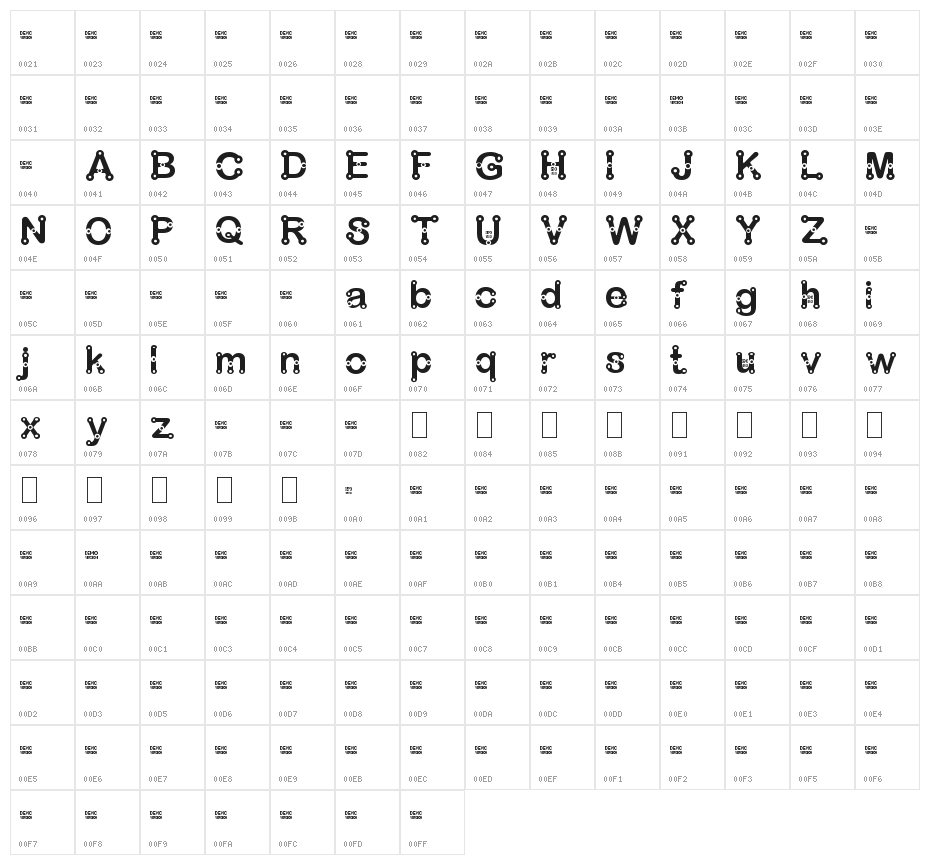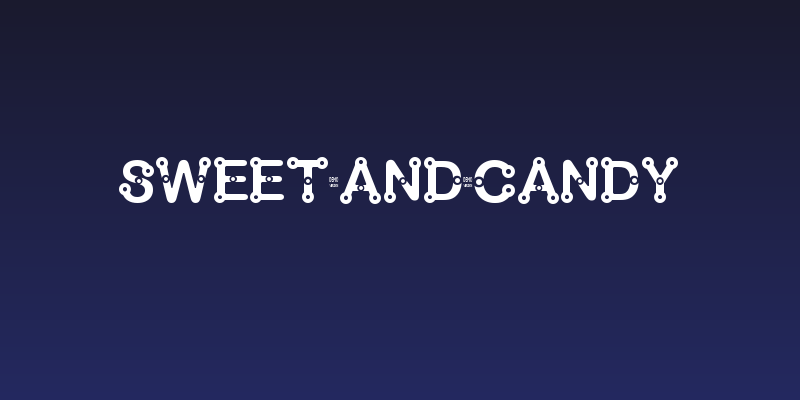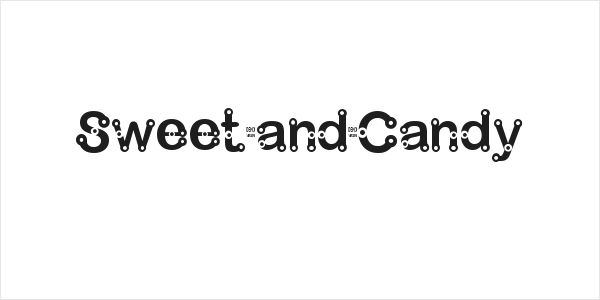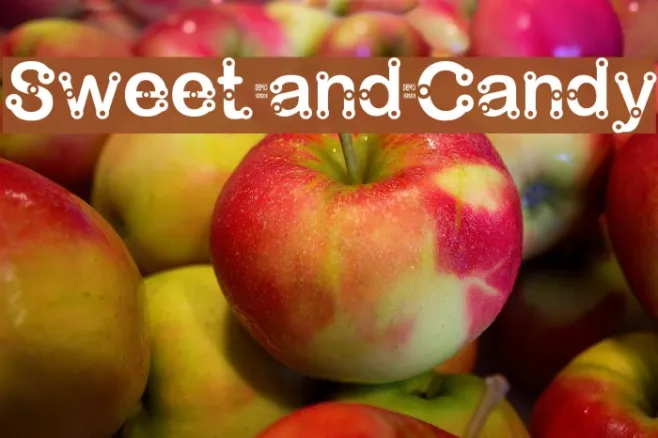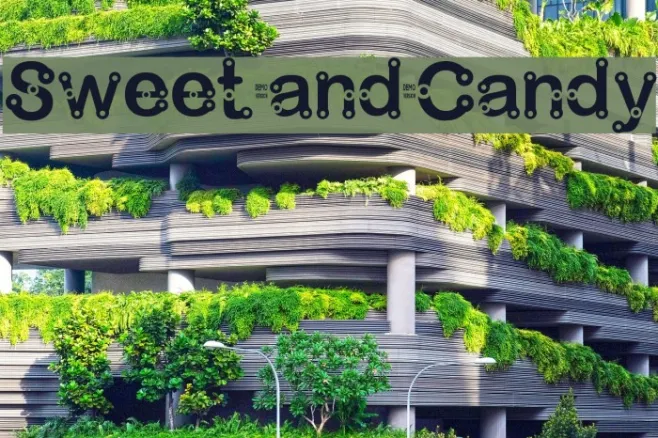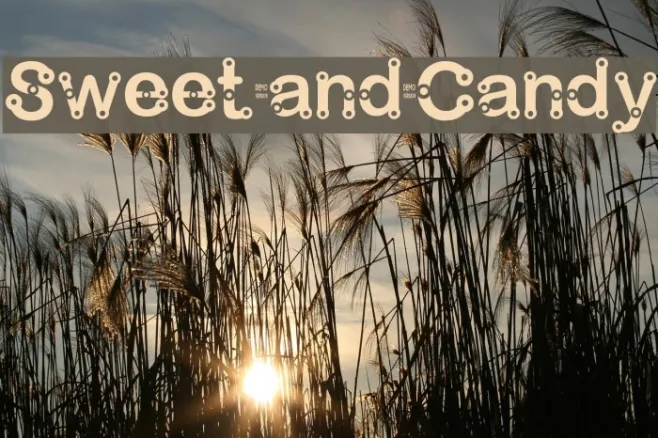
Sweet and Candy Font
Sweet and Candy Description
This playful and whimsical font features a unique design with circular elements connecting each character, reminiscent of a candy necklace. The bold, rounded letters are eye-catching and convey a sense of fun and creativity. The font maintains a consistent thickness throughout, with each character having a uniform width, giving it a cohesive appearance. The playful design is suitable for projects that aim to capture a youthful or lighthearted tone. The font's distinctive style makes it ideal for use in children's books, party invitations, or branding for playful products.
| Proposed Projects | Ideal for children's books, party invitations, playful branding, and creative posters. |